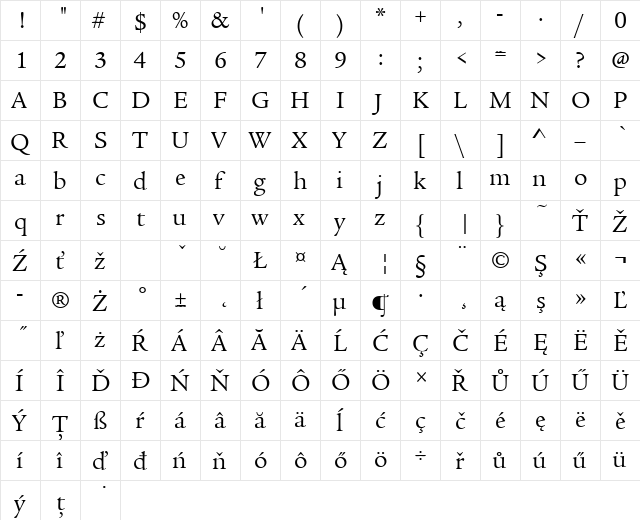
LegacySerItcTEE Regular Font Preview
LegacySerItcTEE Regular
Design Context for LegacySerItcTEE Typeface
LegacySerItcTEE is a composed and adaptable typeface that performs quietly and consistently across a wide range of design contexts.